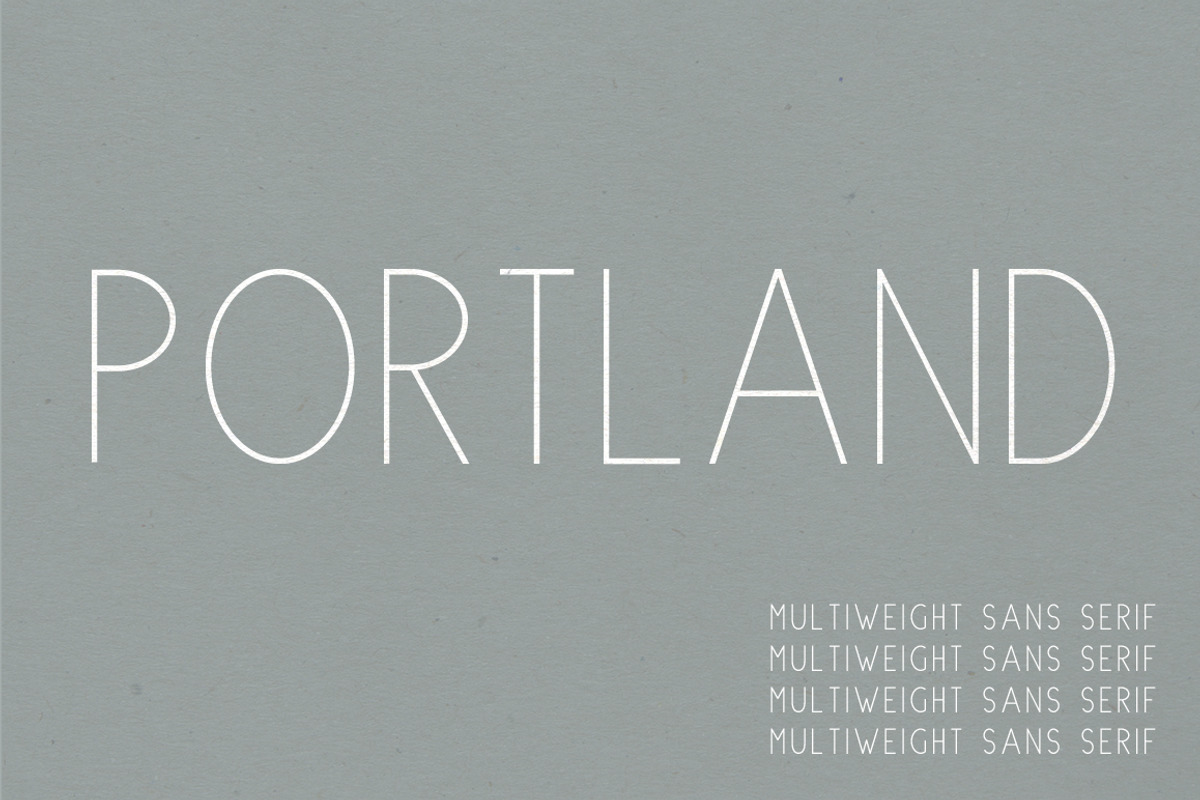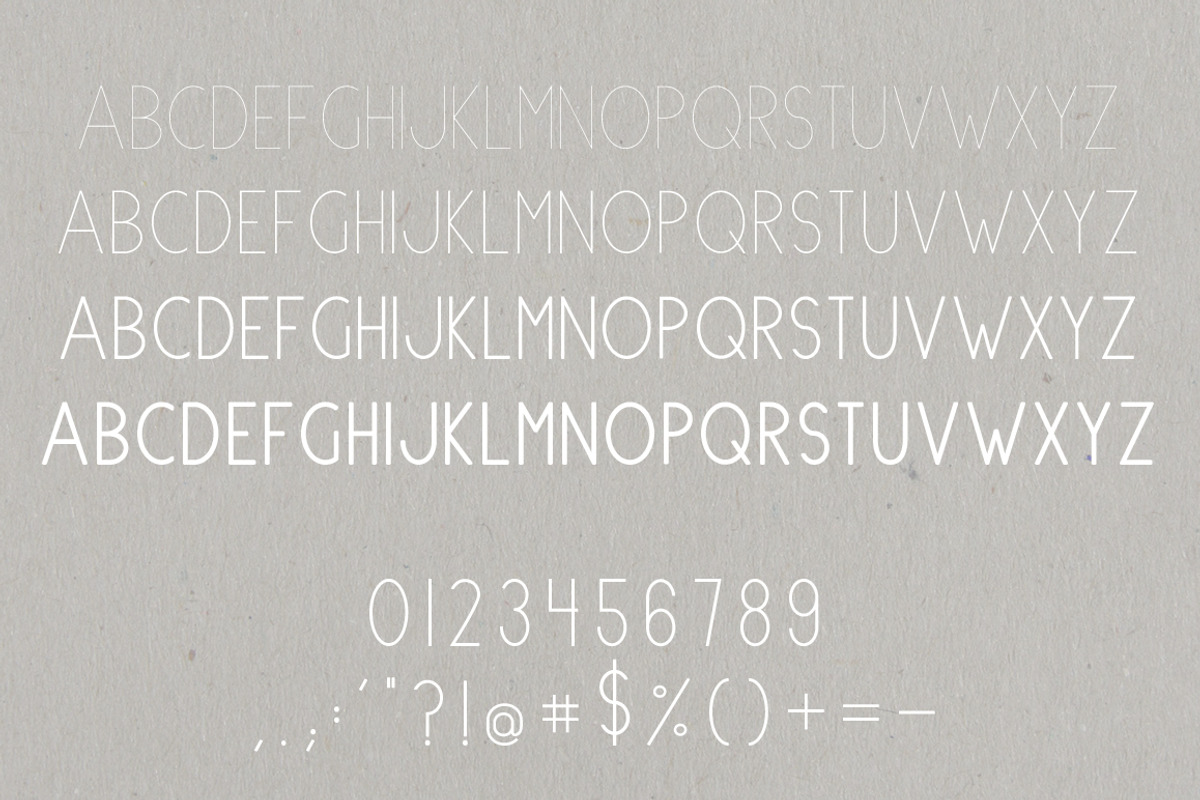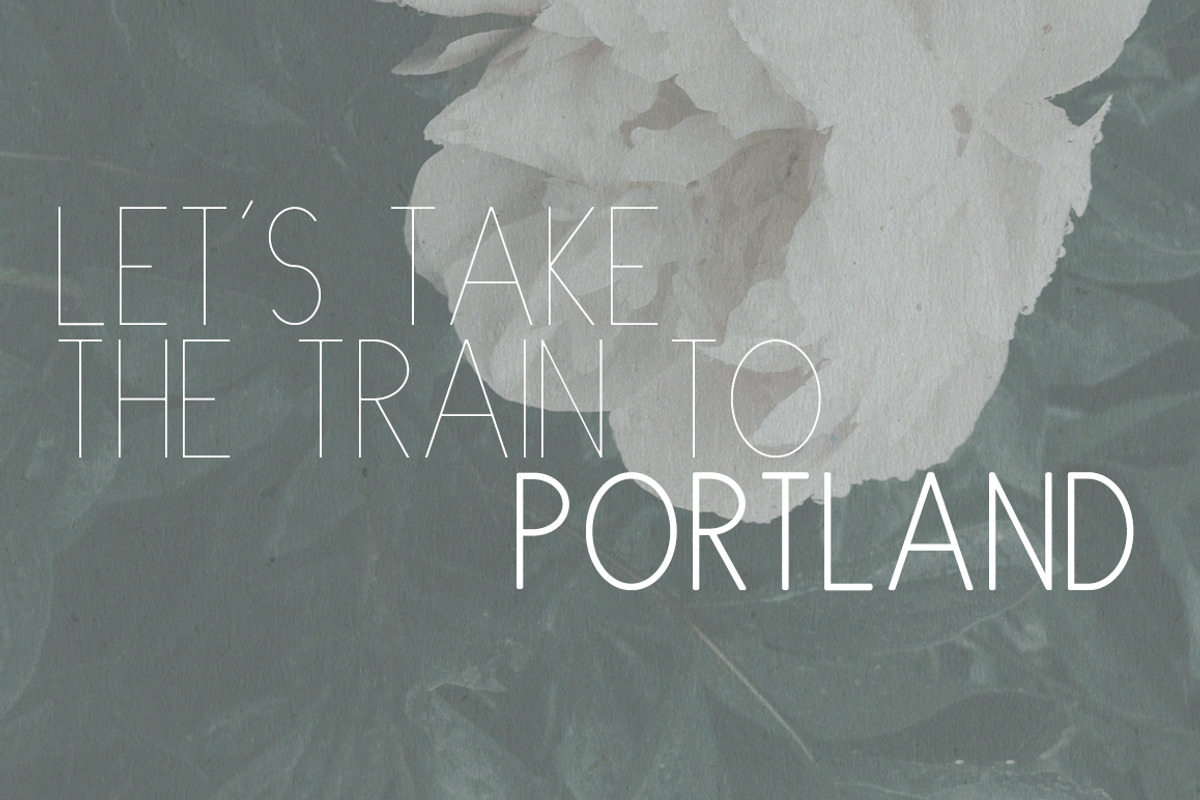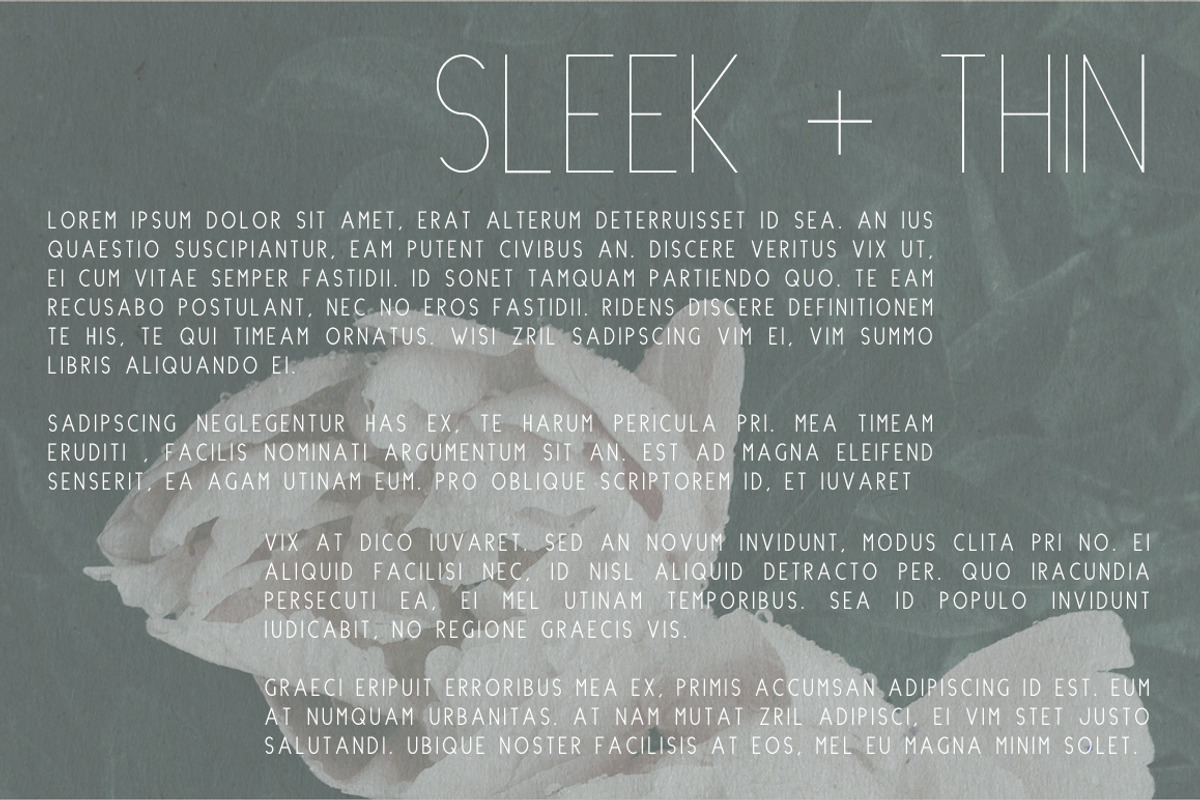
Portland | Multi-Weight Font
Portland | Multi-Weight Font by Jen Wagner Co is a font selected for branding, posters, packaging, typography.
- Includes four weights (light, regular, bold, black) uppercase letters numbers & basic punctuation translates beautifully with the "italic" f
Why Portland | Multi-Weight Font is worth a look
Portland | Multi-Weight Font by Jen Wagner Co fits naturally into Branding, posters, packaging, typography.